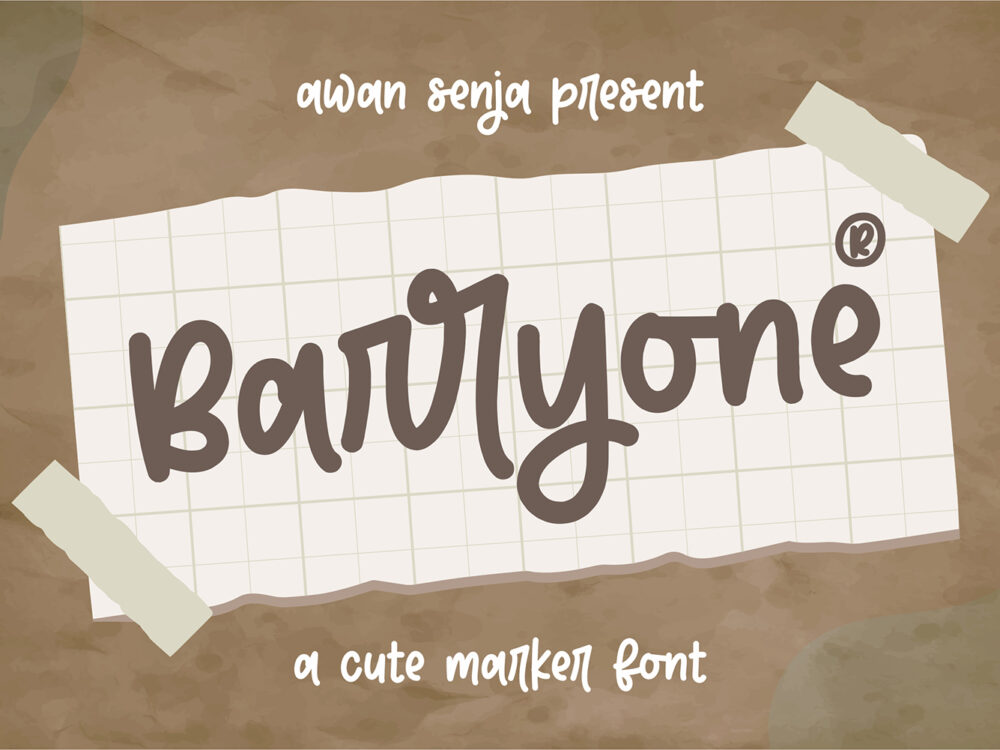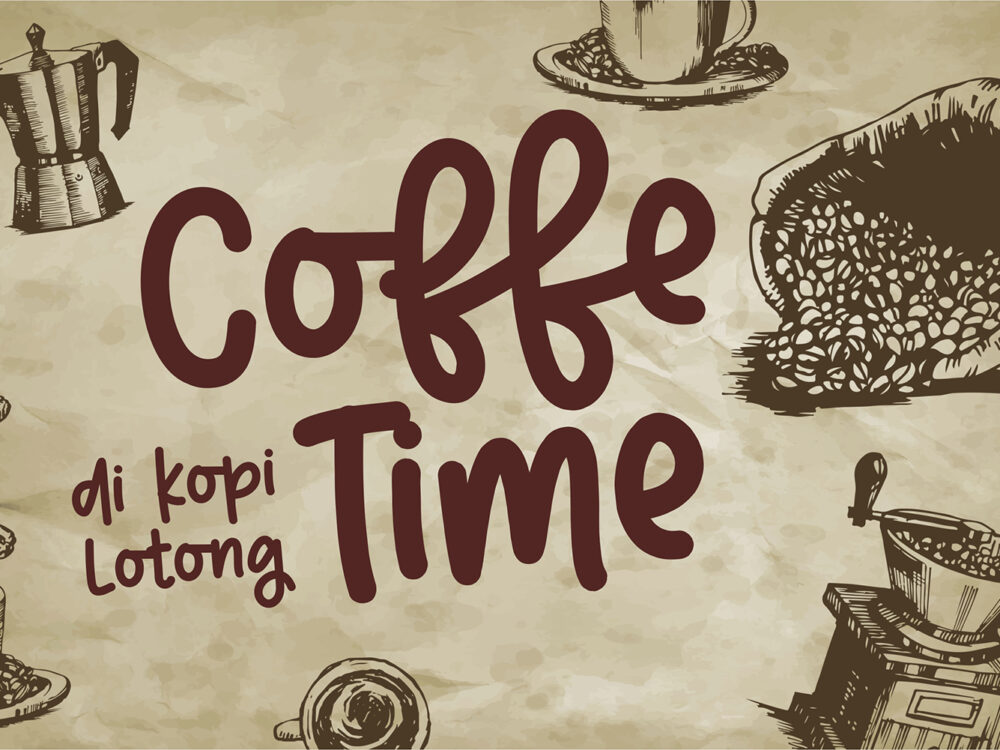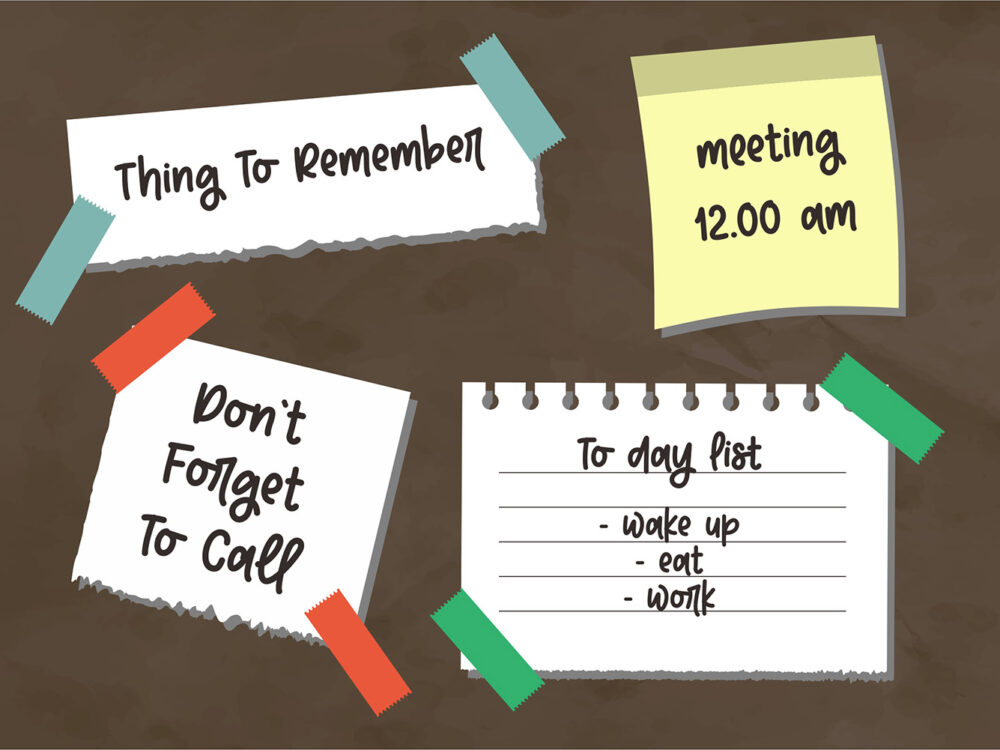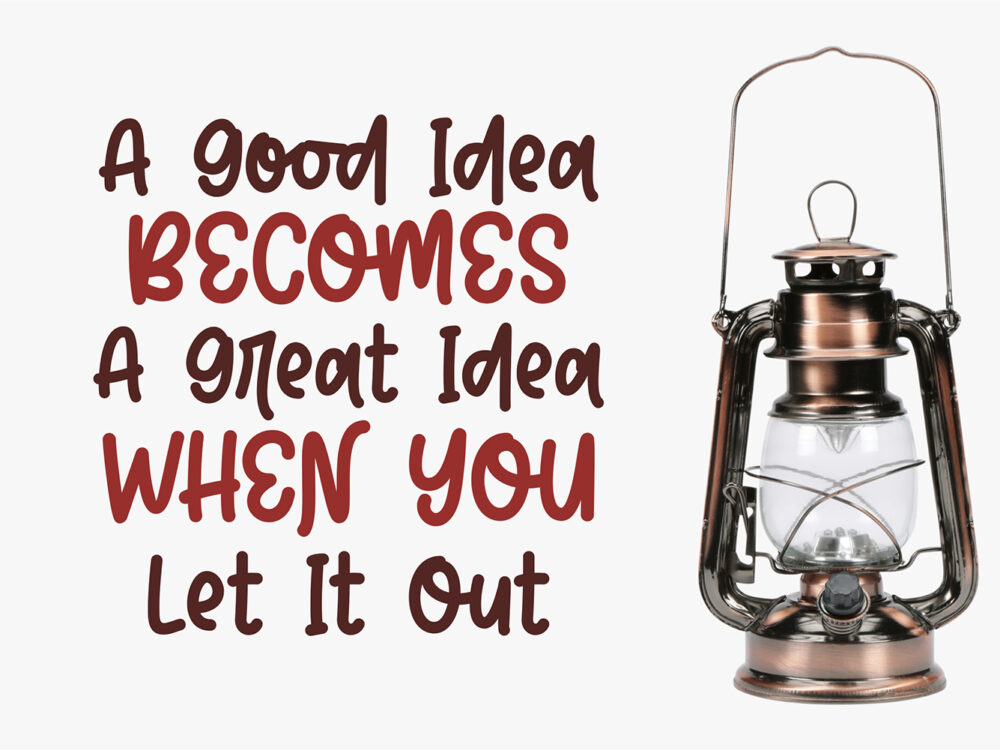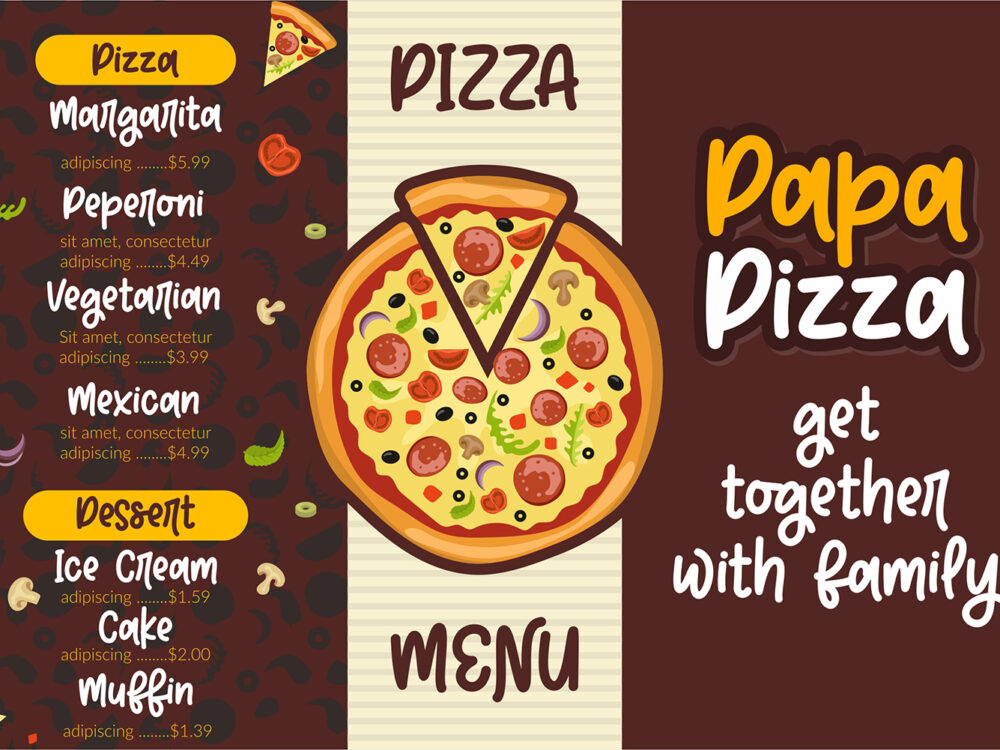
Barryone Free Font
Barryone Free Font is a beautiful handwritten font with fluid lines. The font is ideal for creating various projects in which you need to use a handwritten font. You can create beautiful and memorable posters, invitations, cards, and more with Barryone Free Font. If you like it don’t forget to check out the full version.